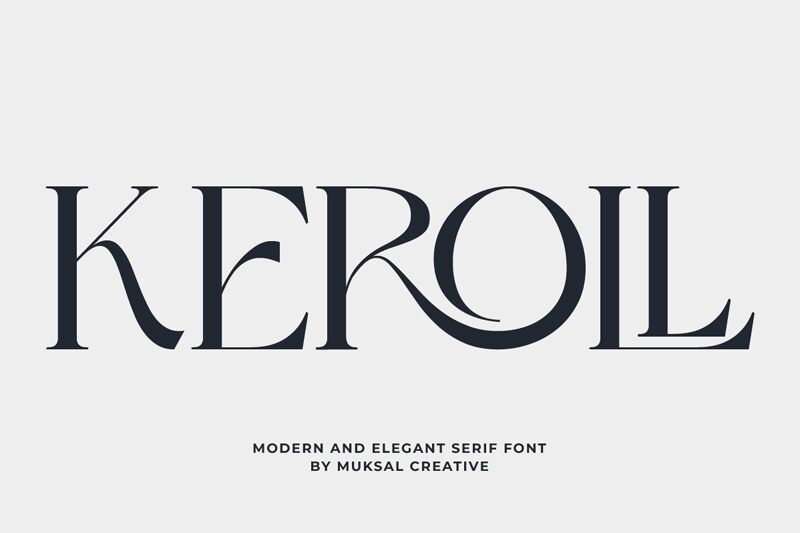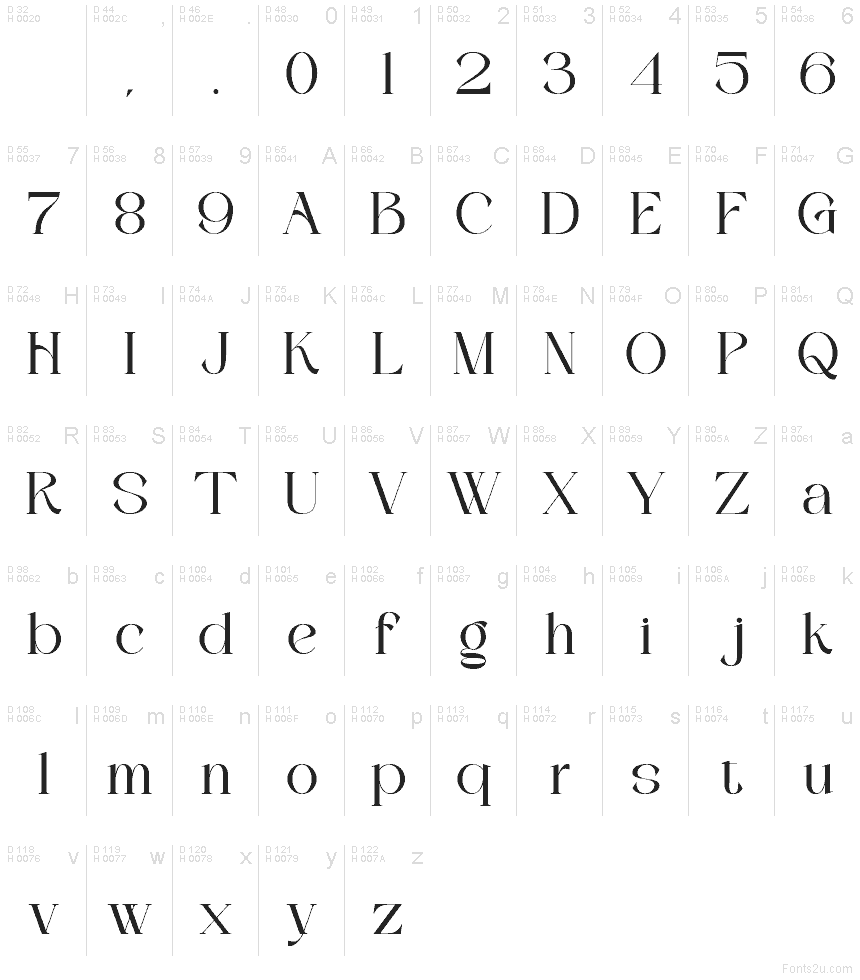
Keroll Regular
Keroll font by Muksal Creative is a free elegant serif typeface with a dramatic, ink-drawn presence. Its letters feel sculpted: long, sweeping curves meet razor-fine edges, and the rhythm between thick and delicate strokes gives every word a sense of movement. There’s a refined tension in Keroll—luxurious, slightly theatrical, and unmistakably modern—so even a single word set large feels like a logo.
Using Keroll, headlines immediately gain a couture, editorial mood that suits fashion branding, beauty packaging, book covers, posters, and upscale invitations. This free font shines on hero titles and short phrases where its graceful shapes can breathe, while smaller supporting text can be set in a simple geometric sans-serif for a clean contrast. Keep Keroll a bit larger than your body copy to let those elegant curves stay crisp and readable.